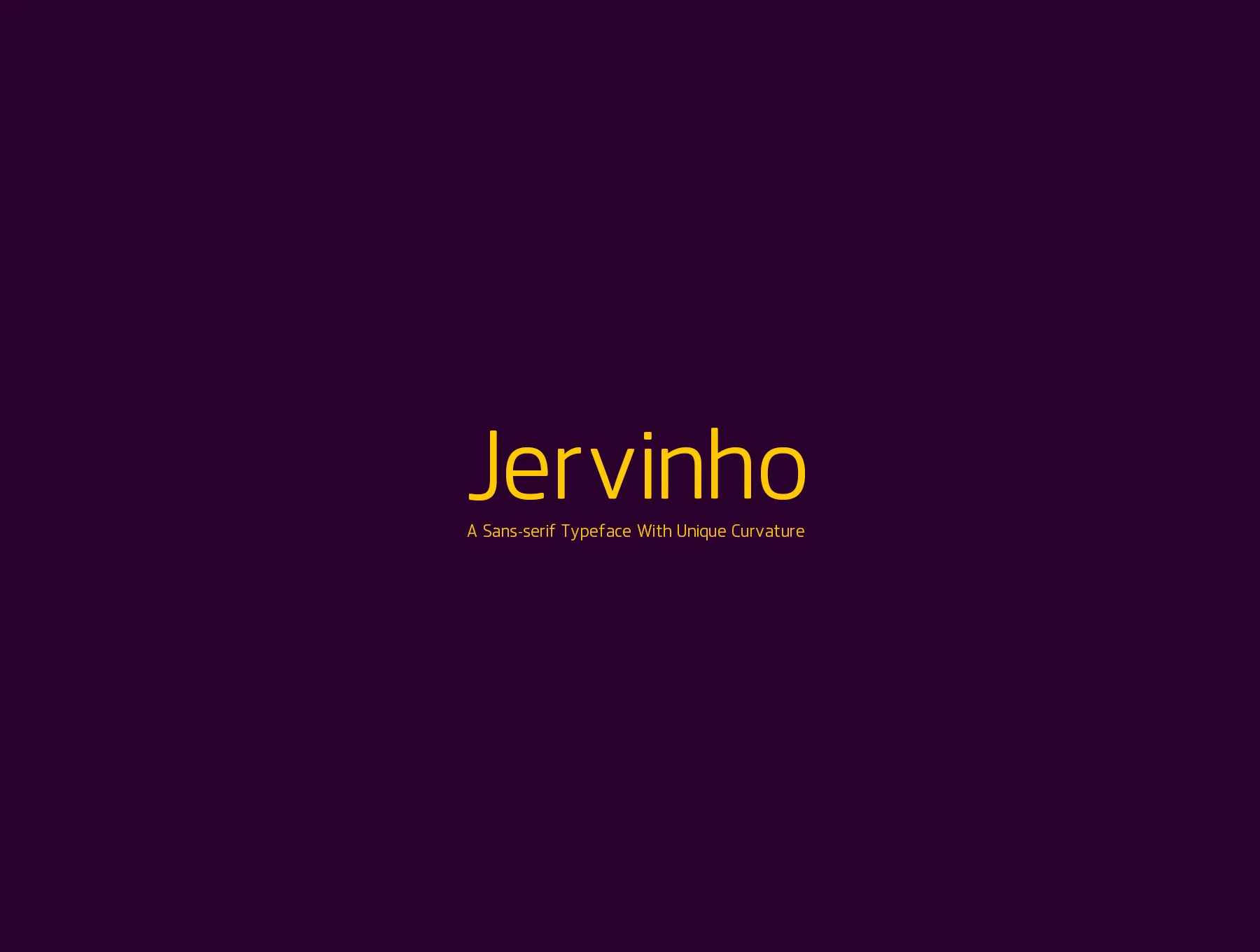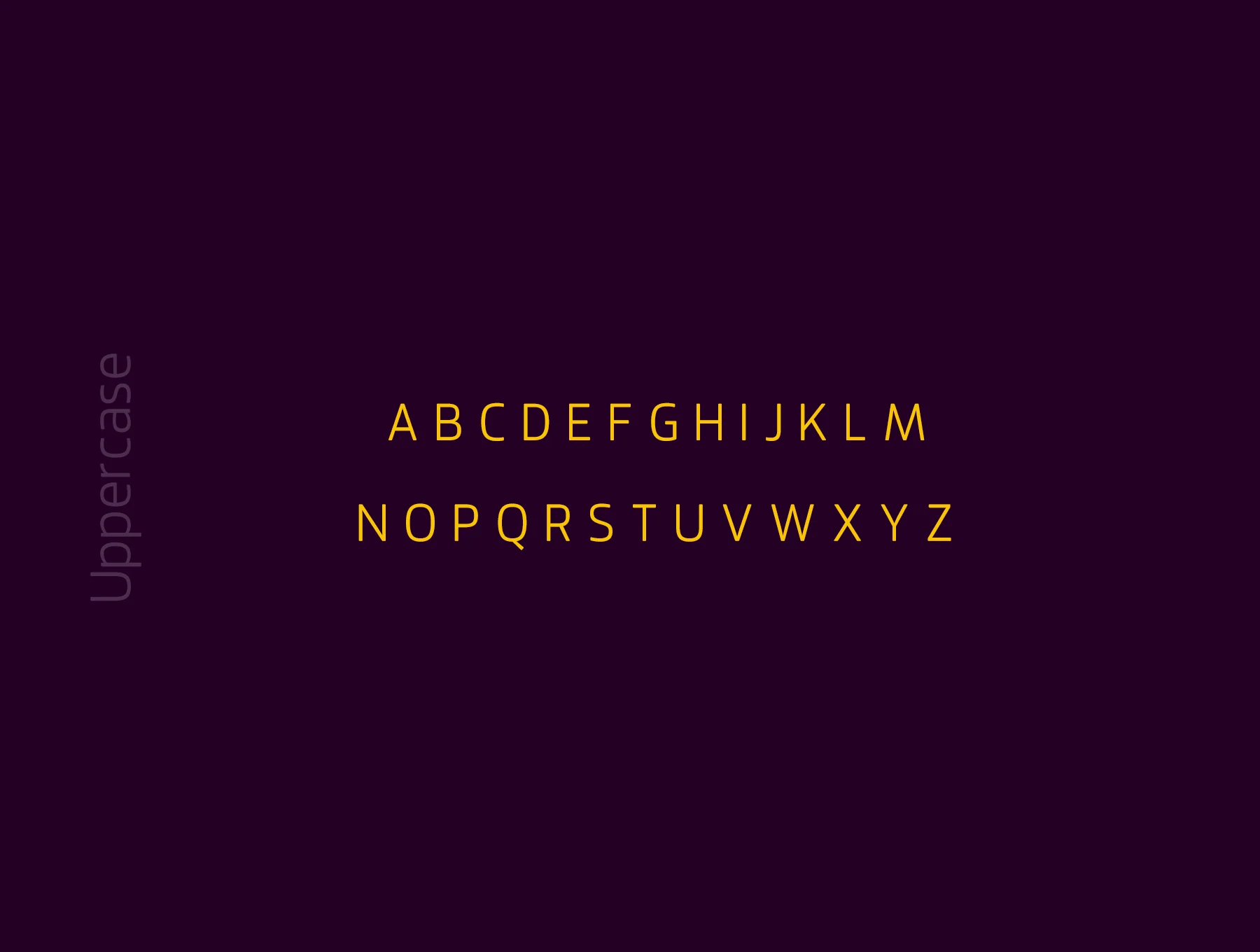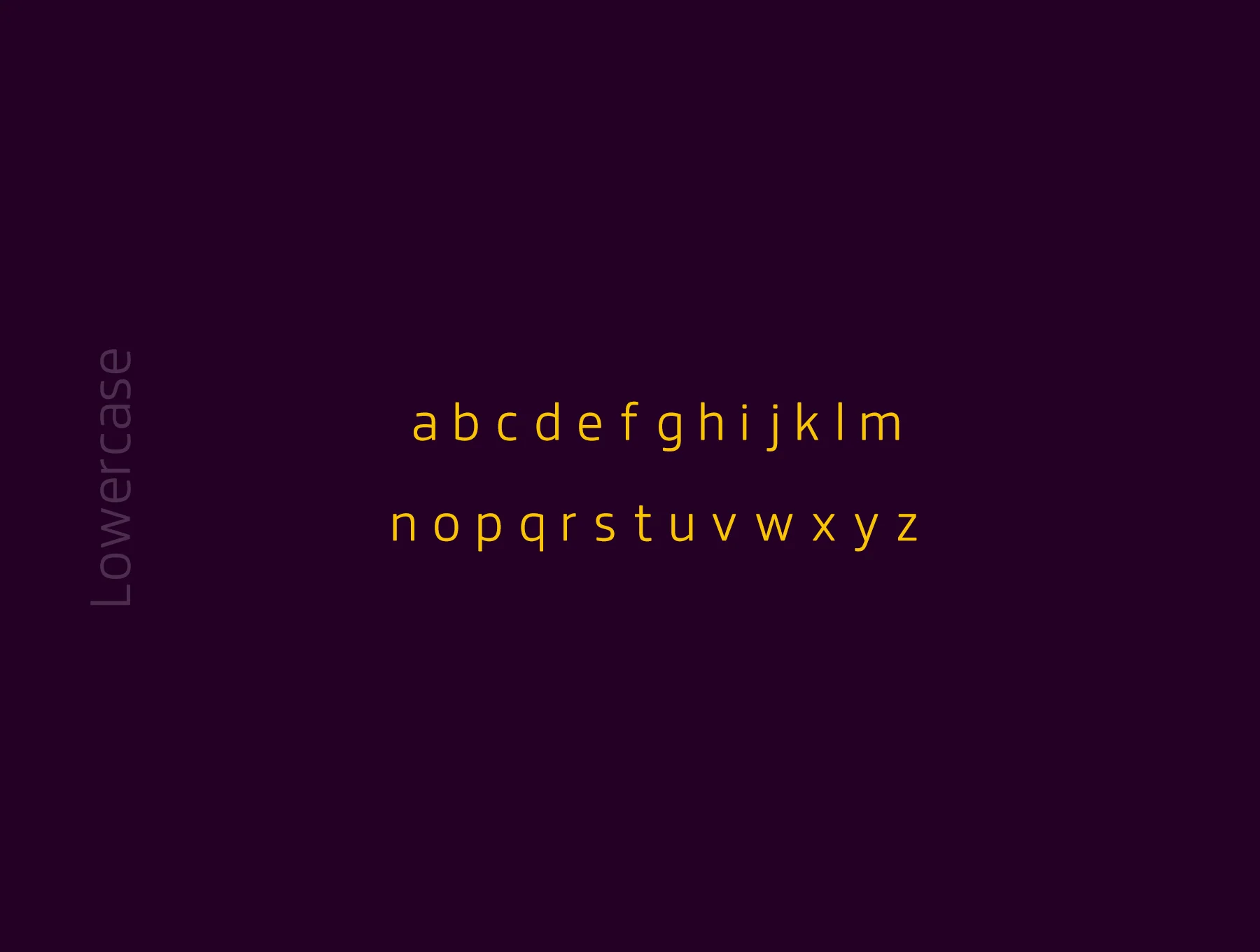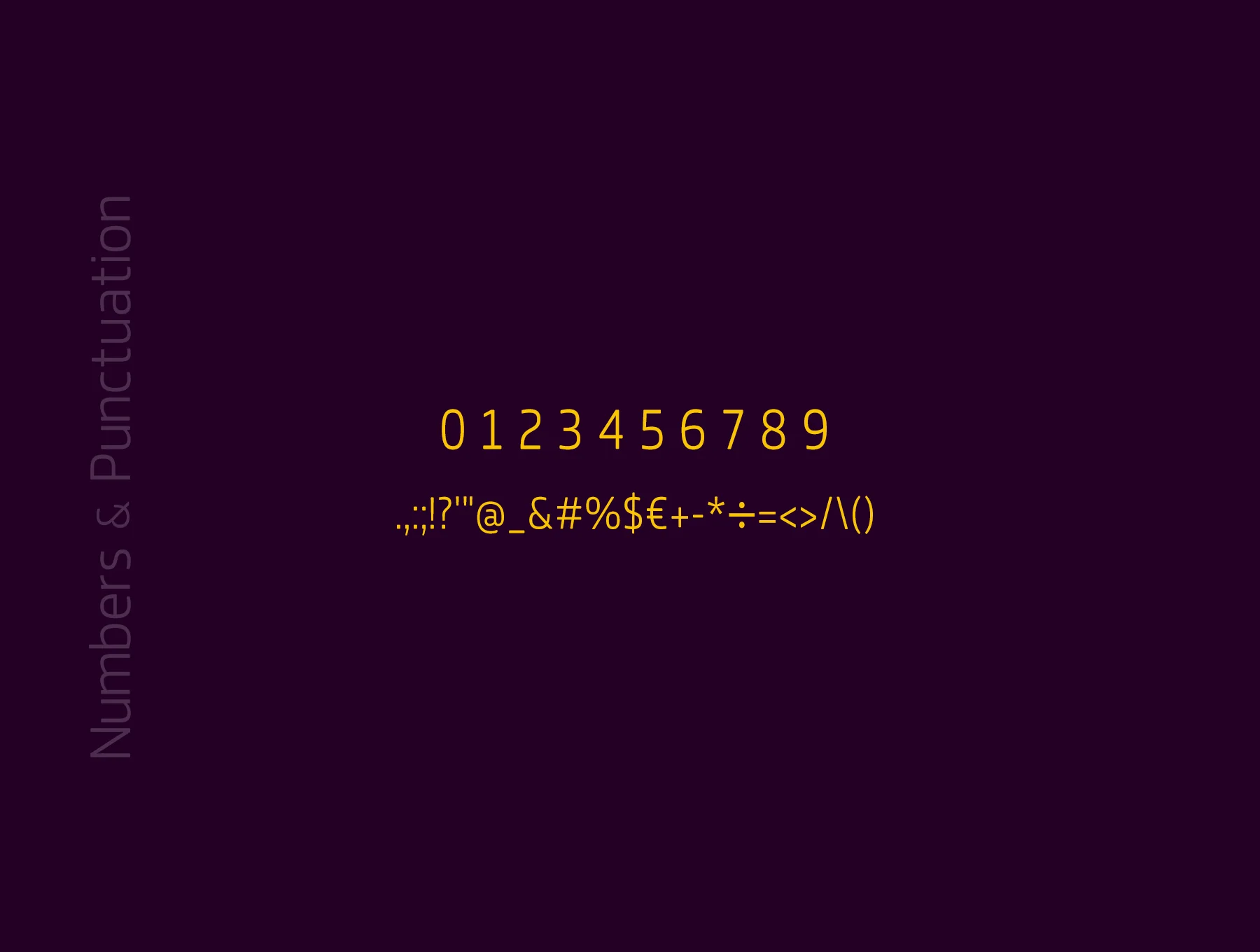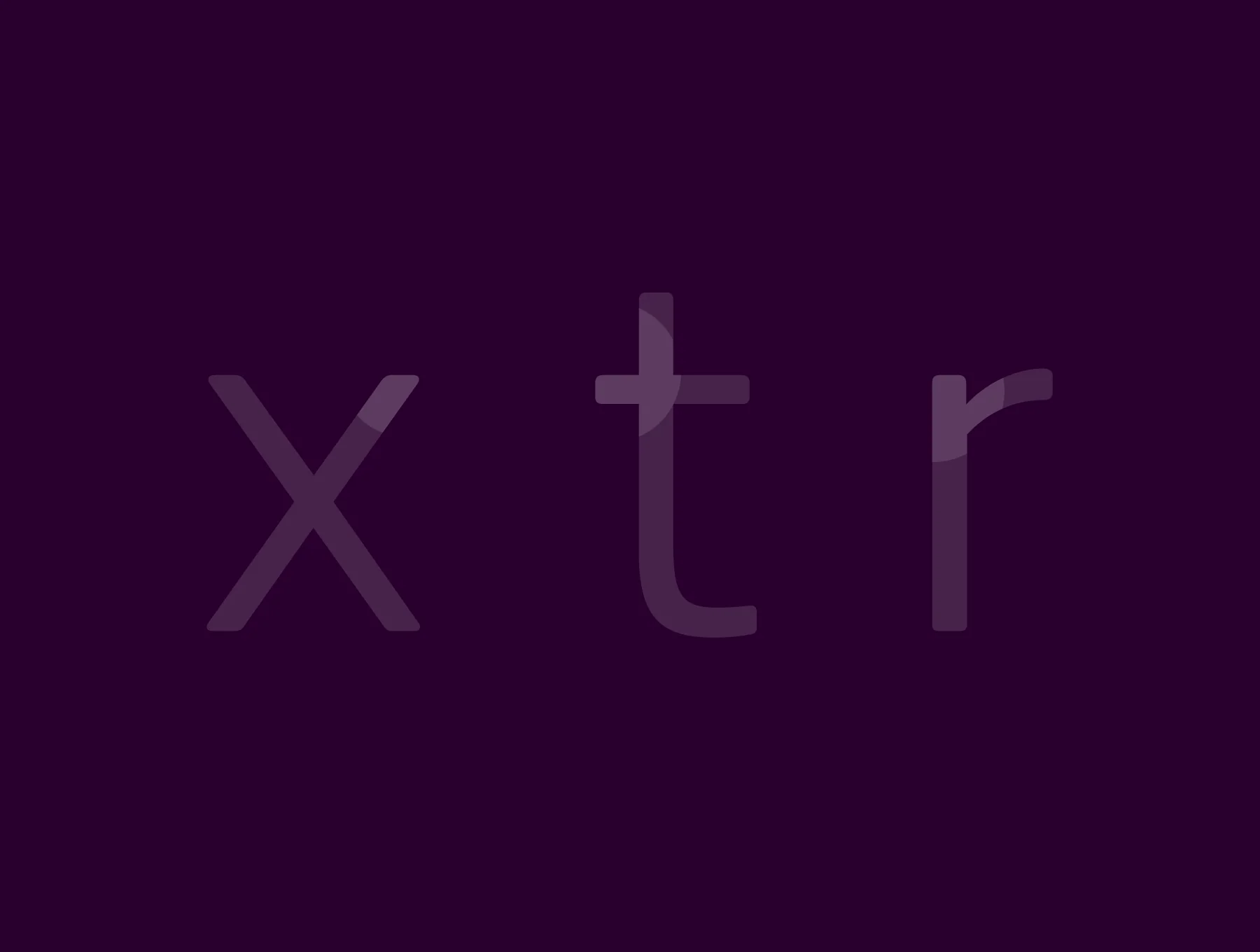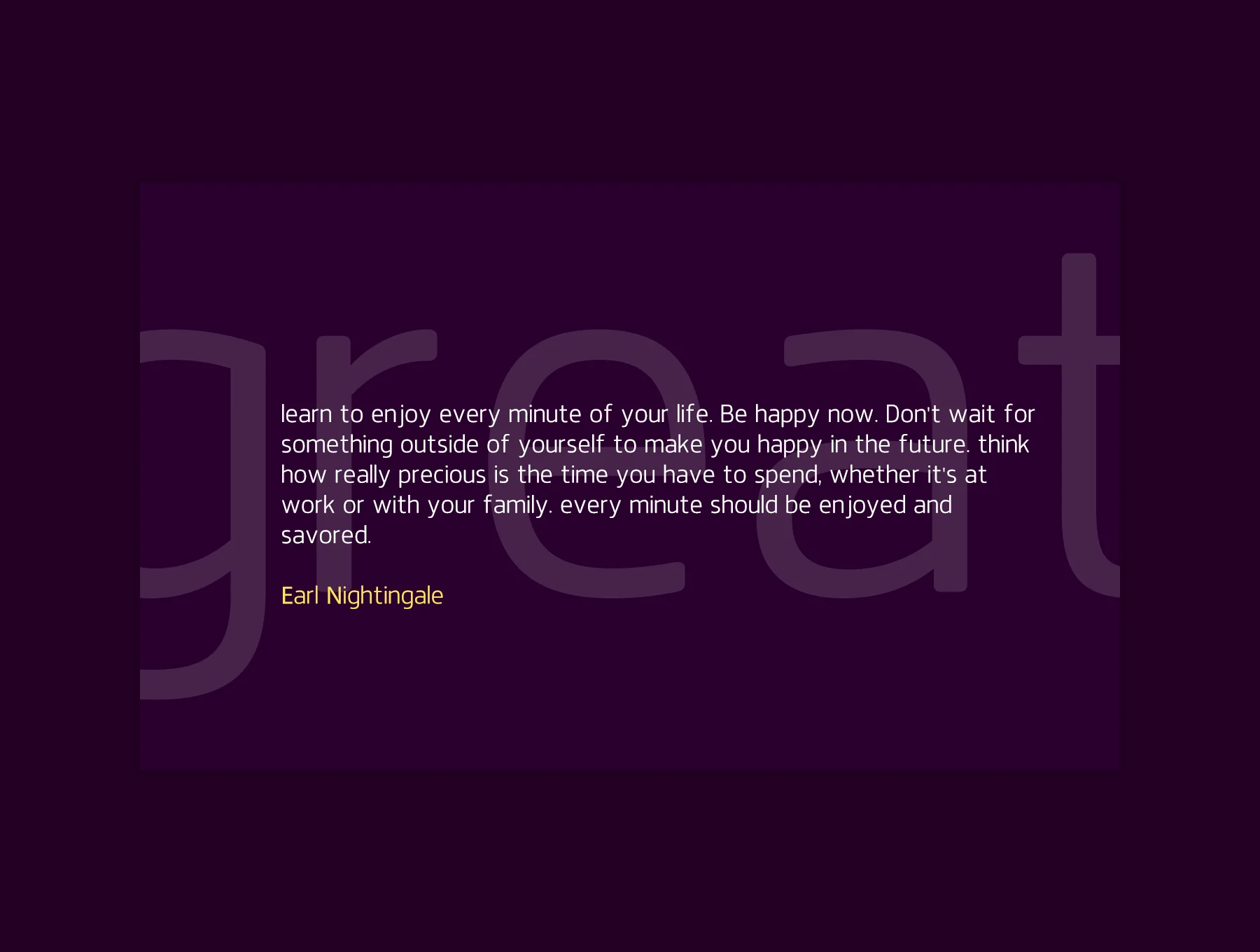
Jervinho Typeface
Sans-serif typeface with distinctive curves
Without serifs
Easy to read
Sleek
Contemporary
Jervinho is a sans-serif font featuring distinctive curves, drawing inspiration from Maven Pro and Titillium Web.